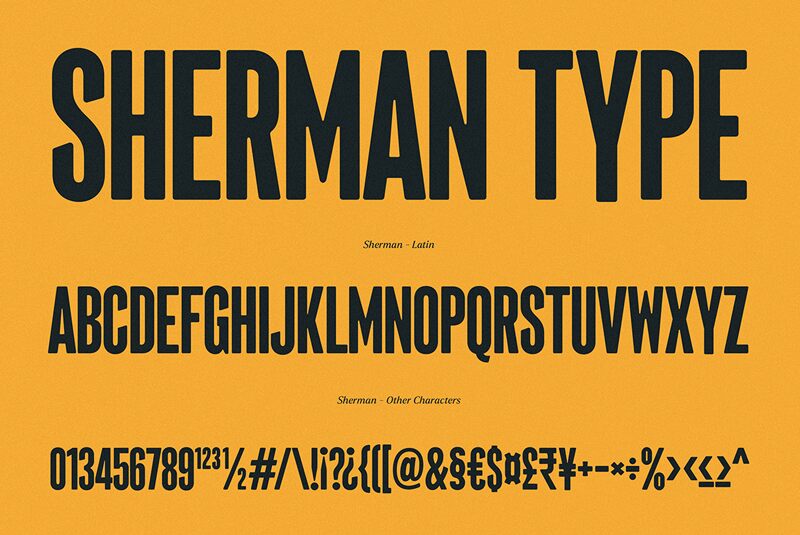
Sherman Display, a stunning sans serif font designed by Ellen Luff, is perfect for projects that require a bold and modern touch. The extra-condensed width gives this typeface a unique look that commands attention. Its sharp lines and clean curves make it suitable for anything from branding materials to social media graphics. Sherman Display's strong presence will add an edge to any design project, making it perfect for creating eye-catching headlines, logos or posters. With its contemporary style and versatile nature, Sherman Display is the ultimate choice for designers looking to make a statement with their typography choices.
Sherman is soft yet assertive, a gentle giant in the world of Typefaces.
Drawn to give headlines a confident and imposing base - while still feeling warm and friendly.
Sherman is brings its own personality to the world of tall typefaces, with sleek slanted terminals and optical adjustments to balance big away from heavy.
Sherman supports many latin languages (including Vietnamese) and can handle all European languages. It is an all caps font, that performs best at large sizes. Its ideal for headlines, titles, signage, branding and strong designs that require a big impact.
Its rounded ink traps and softened edges make it great for use in print or pixels.
Sherman Display